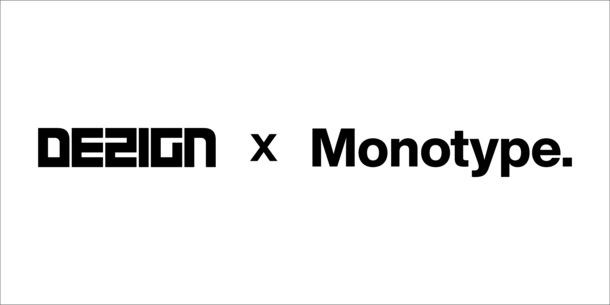
Monotype Acquires Design210 to Deepen Korean Market Presence
- Design210 brings more than 1,100 original fonts and its custom design experience to Monotype, meeting the growing global demand for Korean typefaces.
WOBURN, Mass., May 13th, 2025 — Monotype Imaging Inc., a global leader in type design and technology, announced its acquisition of Design210, a well-known type foundry based in Seoul, South Korea. Design210’s extensive font inventory and industry expertise will enable Monotype to better support the growing Korean market and meet the increasing demand for Korean typefaces from creatives and customers worldwide.
Design210 is known for its popular display fonts and significant presence in the Korean market, serving major media customers across Asia. Design210’s typefaces are highly regarded for their versatility, catering to a wide range of audiences, including media companies, designers, and advertisers. Well-known typefaces include 210 OmniGothic, 210 Doughnut, 210 Santorini, 210 Supersize, and 210 Bimiljeongwon. Receiving international recognition for their design prowess, Design210 was awarded a Grand Prize by the 2020 ADP (Asia Design Prize) for its brand font for the mobile game Cookie Run.
Tom Rickner, Senior Director of Monotype Studio, said, “We are excited to expand our typeface library to include such evocative and expressive Korean typefaces from Design210. Monotype’s stewardship will increase global visibility for these typefaces and put them in the hands of thousands of creative professionals around the world.”
Yujie Chen, Senior Vice President and Managing Director for APAC at Monotype, added, “Korean brands have long been at the forefront of global digital innovation and design. With the addition of the Design210 library and its talented team, we’re now even better positioned to help both local and international customers build distinctive visual identities and deliver exceptional brand experiences across every touchpoint.”
Kwak Dooyul, Co-Founder of Design210, stated, “We are pleased that Design210 is joining Monotype, and I look forward to sharing the beauty of Hangul with people around the world through Monotype.”
Carrying forward Design210’s legacy and expertise in Korean type development, Monotype will accelerate research, innovation, and educational initiatives tailored to Korean typography through its global network.